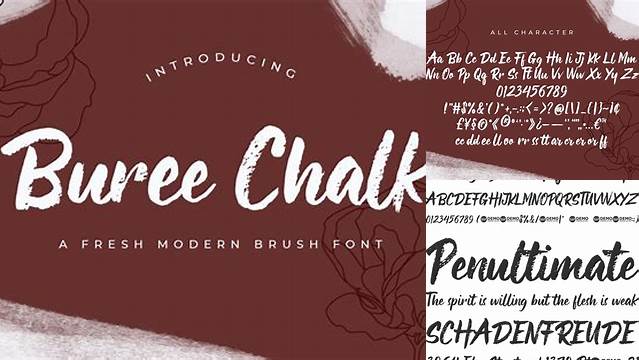
Buree Chalk Font Free Download: A Complete Guide
Hey guys, are you looking for a cool, chalk-style font to spice up your designs? Well, you're in the right place! Today, we're diving into the world of the Buree Chalk Font, a fantastic option that's available for free download and offers a ton of creative possibilities. This article is your go-to guide for everything you need to know about this awesome font, from where to snag it to how to use it effectively in your projects. So, grab your virtual chalkboards and let's get started!
What is the Buree Chalk Font?
First things first, what exactly is the Buree Chalk Font? Think of it as a digital representation of that classic, hand-drawn chalkboard look. It's a typeface designed to mimic the style of chalk lettering, giving your designs a friendly, informal, and slightly retro vibe. The beauty of the Buree Chalk Font lies in its versatility. Whether you're working on a website, a social media post, a poster, or even a personal project, this font can add a touch of creativity and personality that's hard to match with more generic fonts.
The Buree Chalk Font typically comes in a variety of styles, often including regular, bold, and sometimes even italic variations. This allows you to play with different weights and emphasize certain parts of your text. The rough edges and slightly uneven strokes are what give it that authentic chalk look, making it feel like it was genuinely written on a chalkboard. It's this organic feel that makes the Buree Chalk Font so appealing. It brings a sense of warmth and approachability to your designs that can be perfect for things like cafe menus, event flyers, or even educational materials.
When choosing a chalk font, it's important to consider the overall tone and style of your project. The Buree Chalk Font works exceptionally well when you want to create a vintage, handcrafted, or playful feel. It's an excellent choice for projects that aim to be engaging and visually appealing, drawing the viewer's eye and communicating a sense of fun. But keep in mind that it might not be the best fit for more formal or corporate designs. The informal nature of a chalk font can sometimes clash with a more serious tone. So, always keep your audience and the purpose of your design in mind. Before you start using the font, familiarize yourself with its character set, including numbers, symbols, and special characters, to ensure it supports all the text you need. Also, make sure to check the licensing terms to know how you can use the font. Most free fonts allow for personal use, but some may have restrictions for commercial projects. Overall, the Buree Chalk Font is a fantastic tool for designers looking to add a unique and charming touch to their projects. Its ability to bring a sense of creativity and authenticity is what makes it a popular choice among many.